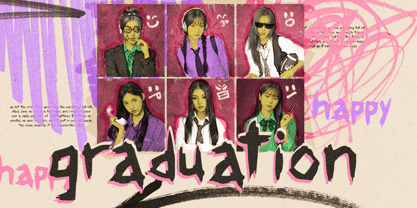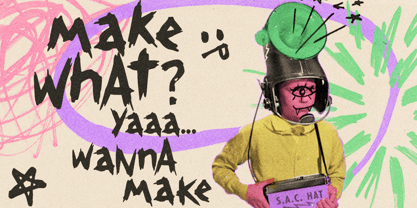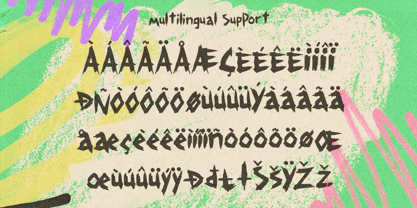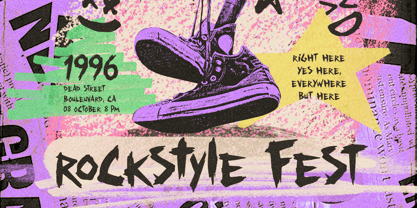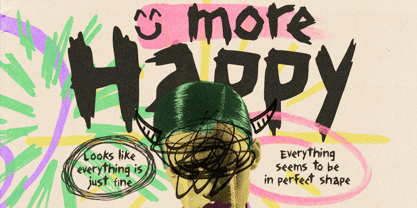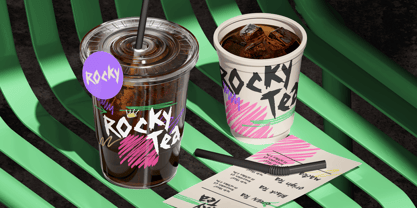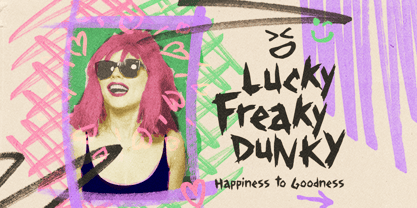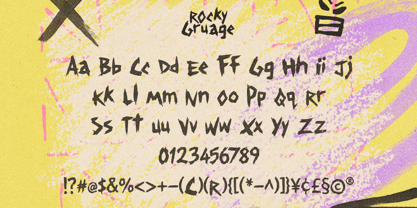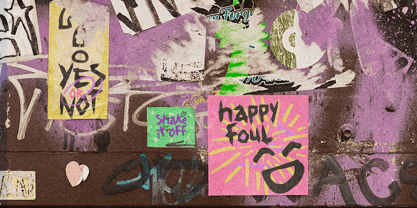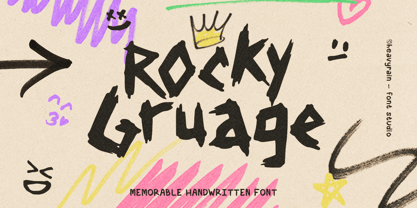
Rocky Gruage
The Rocky Gruage Font Family was designed by Devin Bagus Kurniawan and published by Heavyrain. Rocky Gruage contains 1 styles. More about this family
Rocky Grunge is a bold hand-painted display font inspired by raw street art, expressive brush lettering, and rebellious urban culture. Every letter is crafted with rough brush strokes, uneven edges, and an organic handmade feel that brings energy and authenticity to any design.
Designed to make a statement, Rocky Grunge is perfect for projects that demand a fearless and creative personality. Whether you're creating music artwork, streetwear branding, posters, gaming graphics, YouTube thumbnails, album covers, packaging, or social media content, this font delivers an unmistakable grunge aesthetic with strong visual impact.
The imperfect brush texture and dynamic letterforms create a handcrafted look that feels spontaneous, expressive, and full of attitude while remaining highly readable at display sizes.
Perfect for:
• Streetwear Branding
• Posters & Flyers
• Album Covers
• Music Merchandise
• Gaming Titles
• Urban Branding
• Sports Graphics
• Social Media
• Packaging Design
• YouTube Thumbnails
• Creative Headlines
Bring bold expression, urban energy, and handcrafted character to your next project with Rocky Grunge.